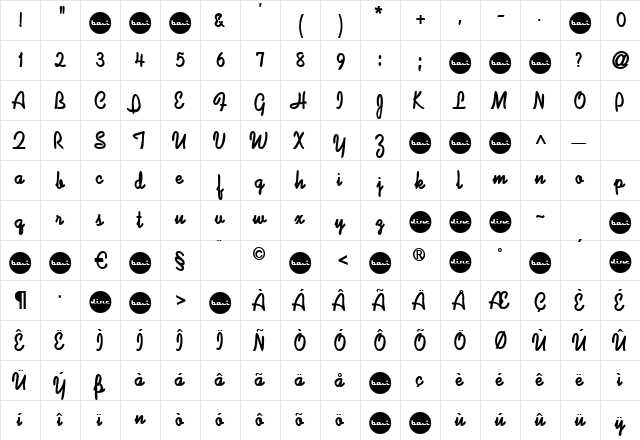
LaDolceVita Regular
Design Context for LaDolceVita Typeface
LaDolceVita is a composed and adaptable typeface that performs quietly and consistently across a wide range of design contexts.